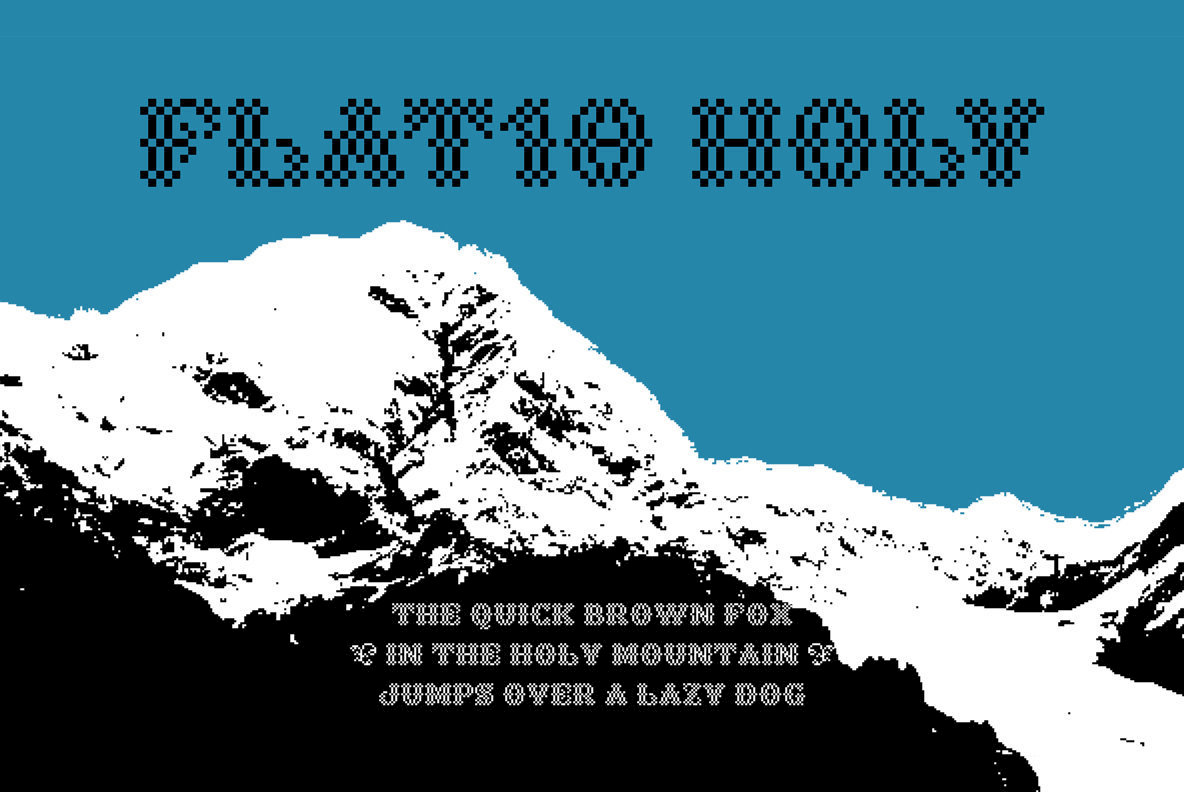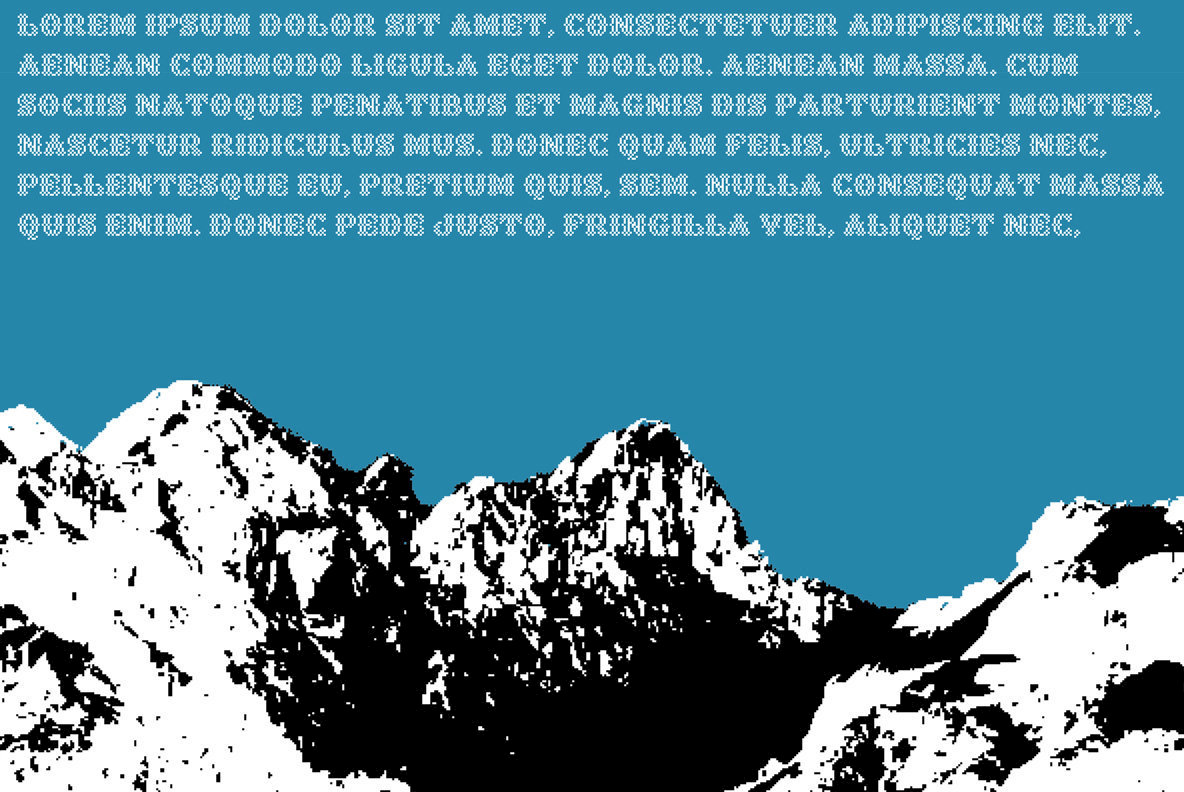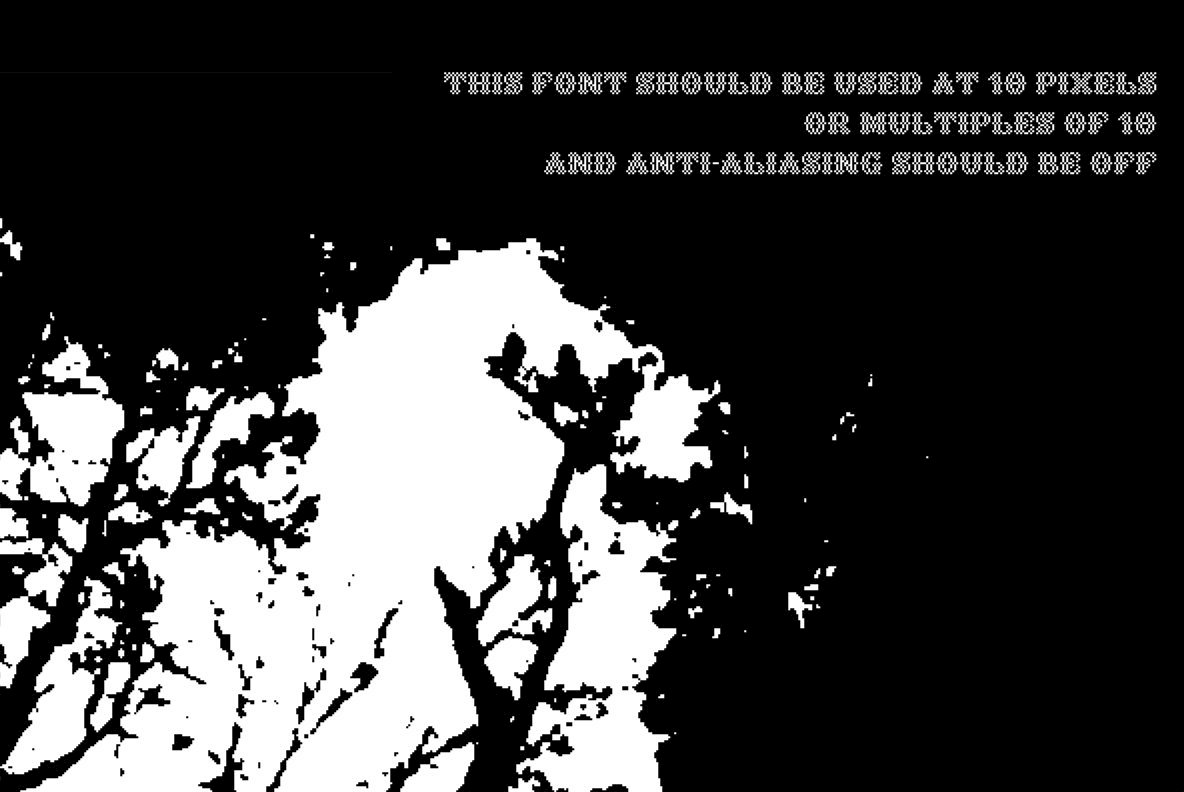
This 8-bit pixel font is designed with respect for 80s game designers and the pixel font pioneers in middle 90s. Use at size 10 pixels or multiples of 10 and anti-alias off is recommended.